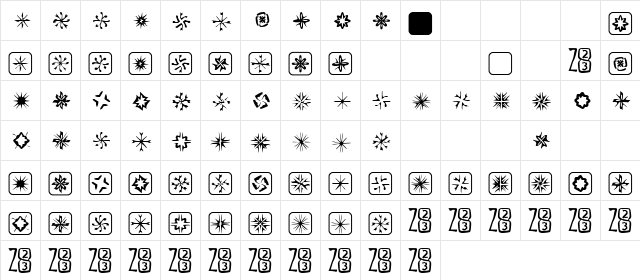
Zone23_foopy7 Normal
Design Context for Zone23_foopy7
Zone23_foopy7 is a composed and adaptable typeface that performs quietly and consistently across a wide range of design contexts.